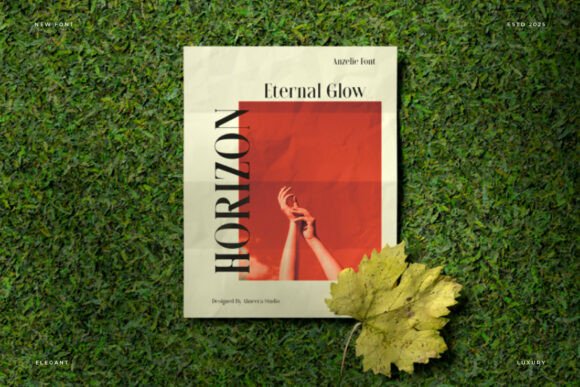
Introducing Anzelie Font: Elevate Your Designs with Elegance and Sophistication
In the world of typography, a font can make all the difference in the success of a design project. For those seeking a typeface that exudes luxury, sophistication, and modern charm, look no further than Anzelie Font. This elegant, stylish serif font is designed to bring a touch of refinement and artistry to a wide range of applications, from luxury branding and editorial design to packaging, fashion campaigns, and wedding invitations.
The Essence of Anzelie Font
Anzelie Font is characterized by its timeless sophistication and modern charm. Its refined details and smooth curves bring a sense of exclusivity and artistry to every project. The font features graceful alternates and unique ligatures, which add an extra layer of elegance and sophistication to any design. Whether you’re looking to create a luxurious brand identity, a stunning editorial spread, or a beautiful wedding invitation, Anzelie Font is the perfect choice.
Key Features of Anzelie Font
- Elegant Serif Design: Anzelie Font boasts a classic serif design with a modern twist, making it perfect for a wide range of applications.
- Graceful Alternates and Ligatures: The font features beautiful alternates and ligatures that add a touch of sophistication and elegance to any design.
Applications of Anzelie Font
Anzelie Font is a versatile typeface that can be used in a variety of applications, including:
- Luxury Branding: Create a luxurious brand identity with Anzelie Font, perfect for high-end fashion, hospitality, and lifestyle brands.
- Editorial Design: Use Anzelie Font to create stunning editorial spreads, perfect for fashion magazines, lifestyle publications, and more.
- Packaging: Add a touch of elegance and sophistication to your packaging designs with Anzelie Font.
- Fashion Campaigns: Use Anzelie Font to create beautiful and effective fashion campaigns that exude luxury and sophistication.
- Wedding Invitations: Create beautiful and elegant wedding invitations with Anzelie Font, perfect for formal and semi-formal events.
The Benefits of Using Anzelie Font
Using Anzelie Font in your design projects offers a range of benefits, including:
- Enhanced Elegance and Sophistication: Anzelie Font adds a touch of refinement and artistry to any design, elevating it to the next level.
- Customization: With effortless access to all glyphs, swashes, and alternate characters, you can customize Anzelie Font to suit your design needs.
- Professionalism: Anzelie Font’s refined details and smooth curves bring a sense of professionalism and exclusivity to any design.
In conclusion, Anzelie Font is a stunning, elegant serif font that is perfect for designers seeking to add a touch of luxury and sophistication to their work. With its refined details, smooth curves, and beautiful alternates and ligatures, Anzelie Font is sure to elevate any design project to the next level. Its versatility, multilingual support, and PUA-encoding make it easy to use in a variety of applications and languages. Whether you’re a graphic designer, a fashion brand, or a wedding planner, Anzelie Font is the perfect choice for any design project that demands elegance and sophistication.